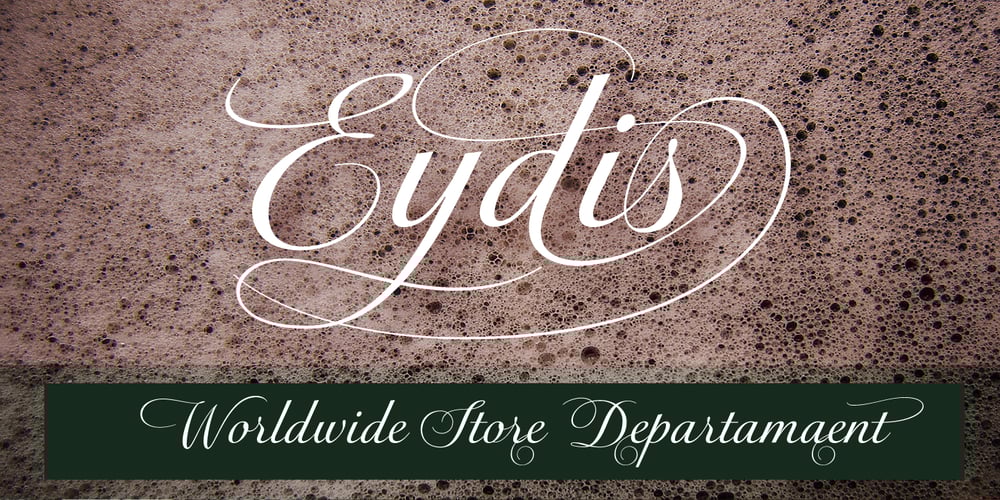
Brittes Font Family was designed by Olcar Alcaide and published by Eurotypo. Brittes contains 1 styles and family package options. Brittes is a fontface inspired in a formally English round hand, also called anglaise or Copperplate script. The calligraphy was the dominant style among 18th-century writing masters, whose copybooks were splendidly printed from models engraved on copper. In the mid-1800’s, the Spencerian form of penmanship became a standard. An elegant handwriting was much prized. Today, in our computer age, a fine, beautiful, and legible handwriting brings a warm personal touch to your graphic design and visual communications projects. This font comes with three different kinds of capitals, regular and swashes to choose from, a full set of stylistic alternates, standard and discretional ligatures. Old style numerals ornaments and tails.